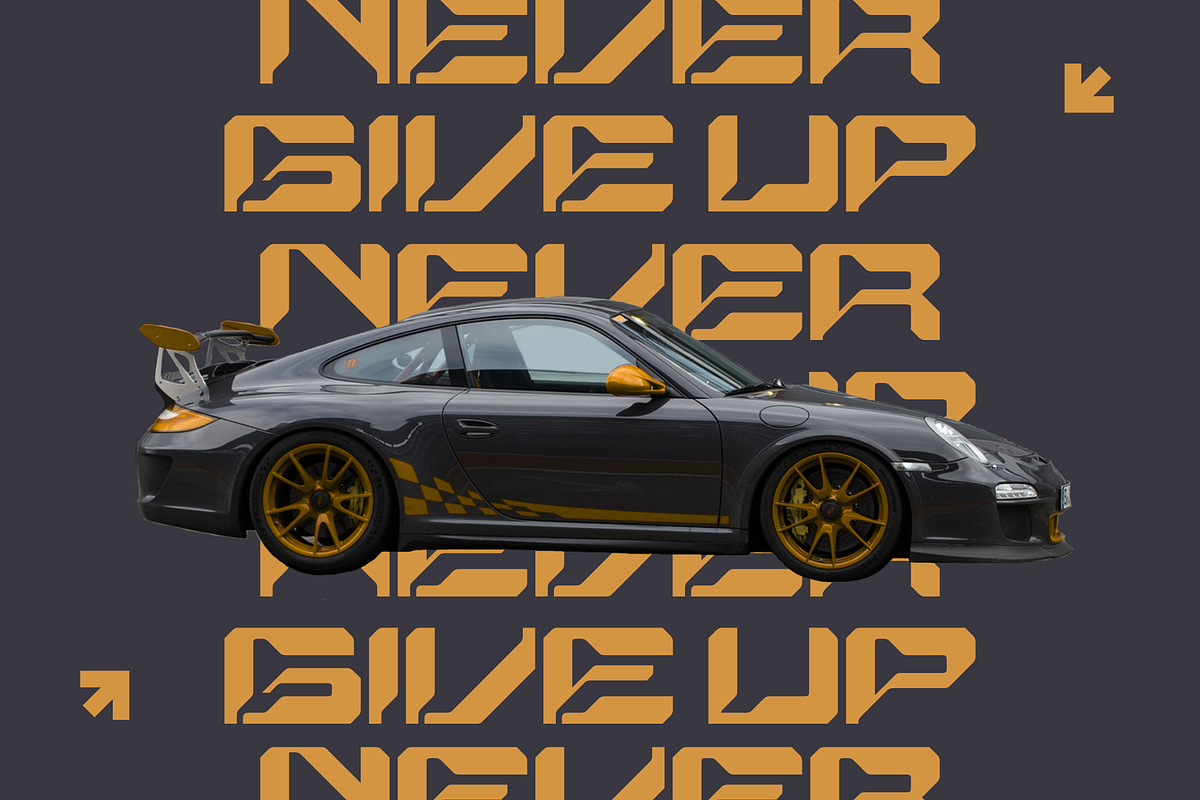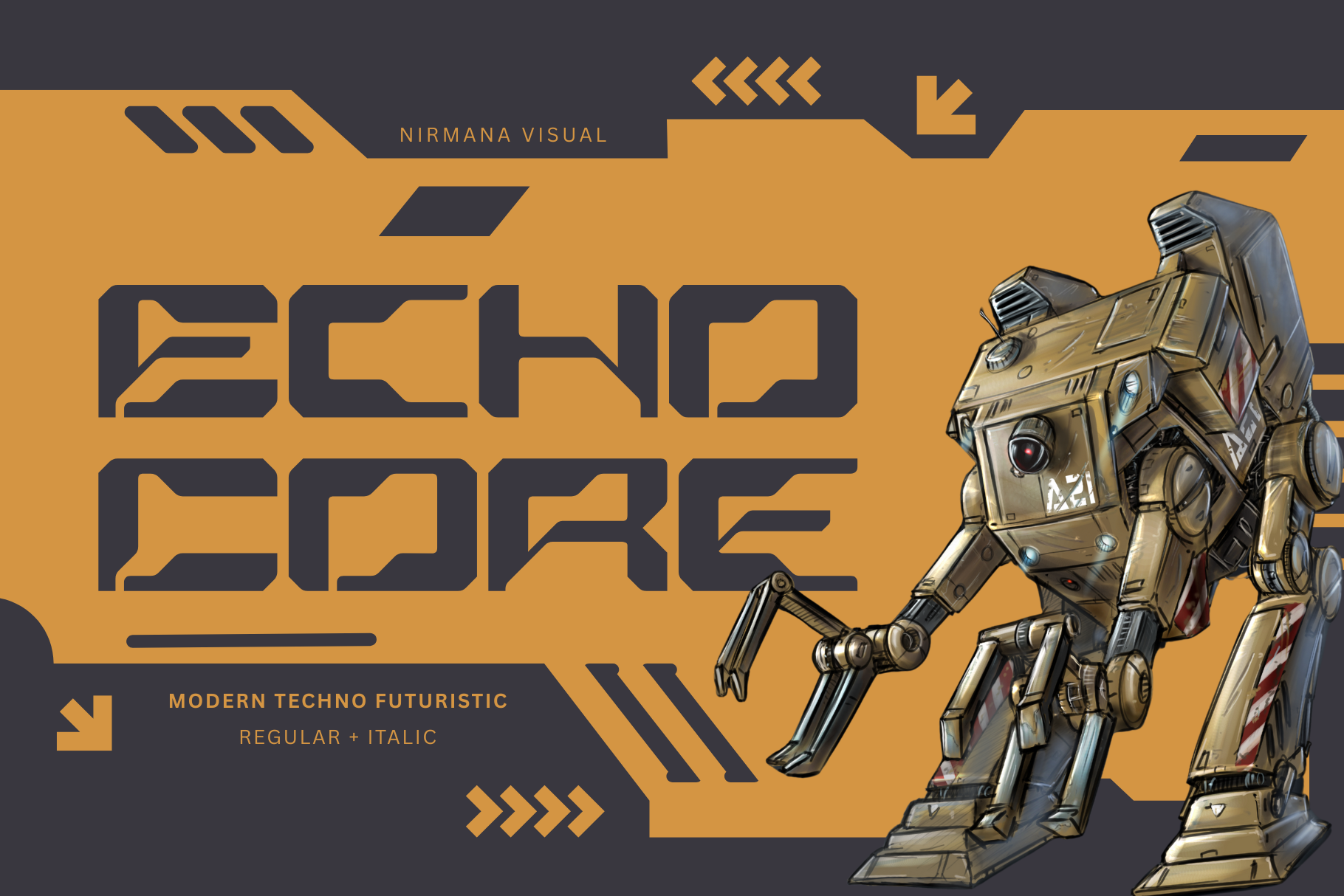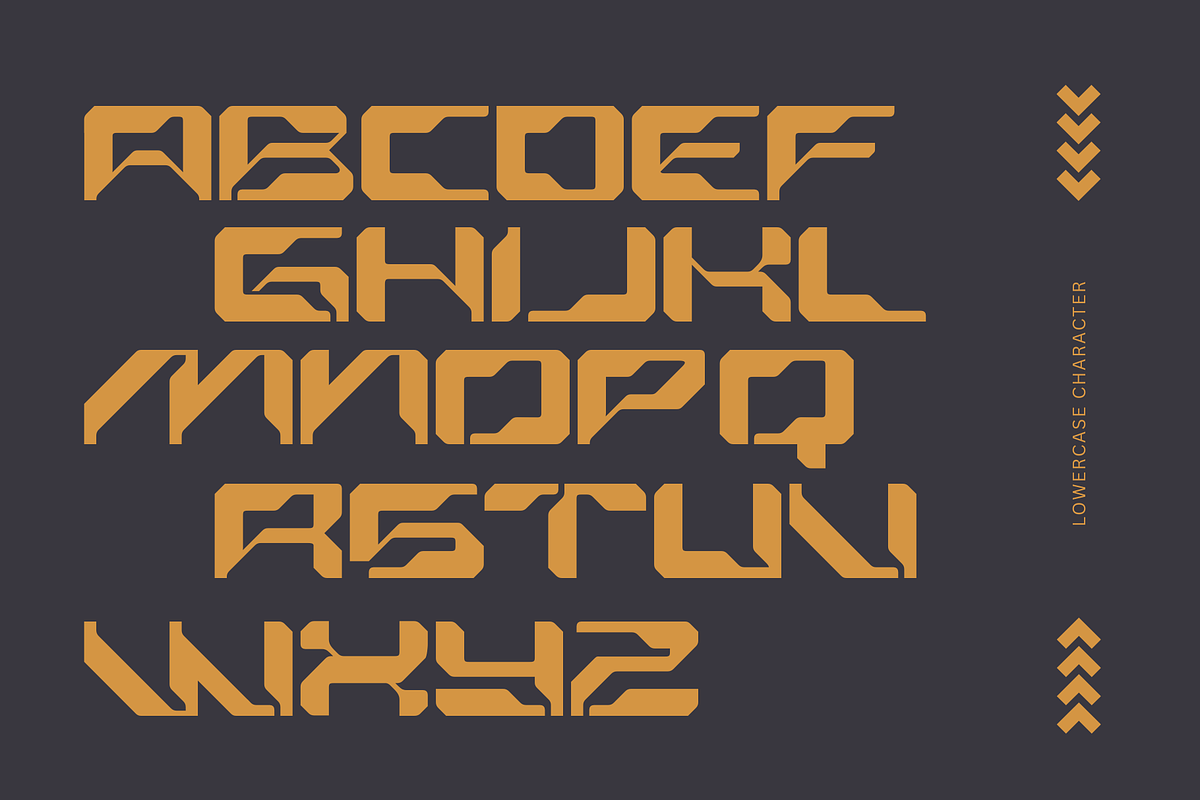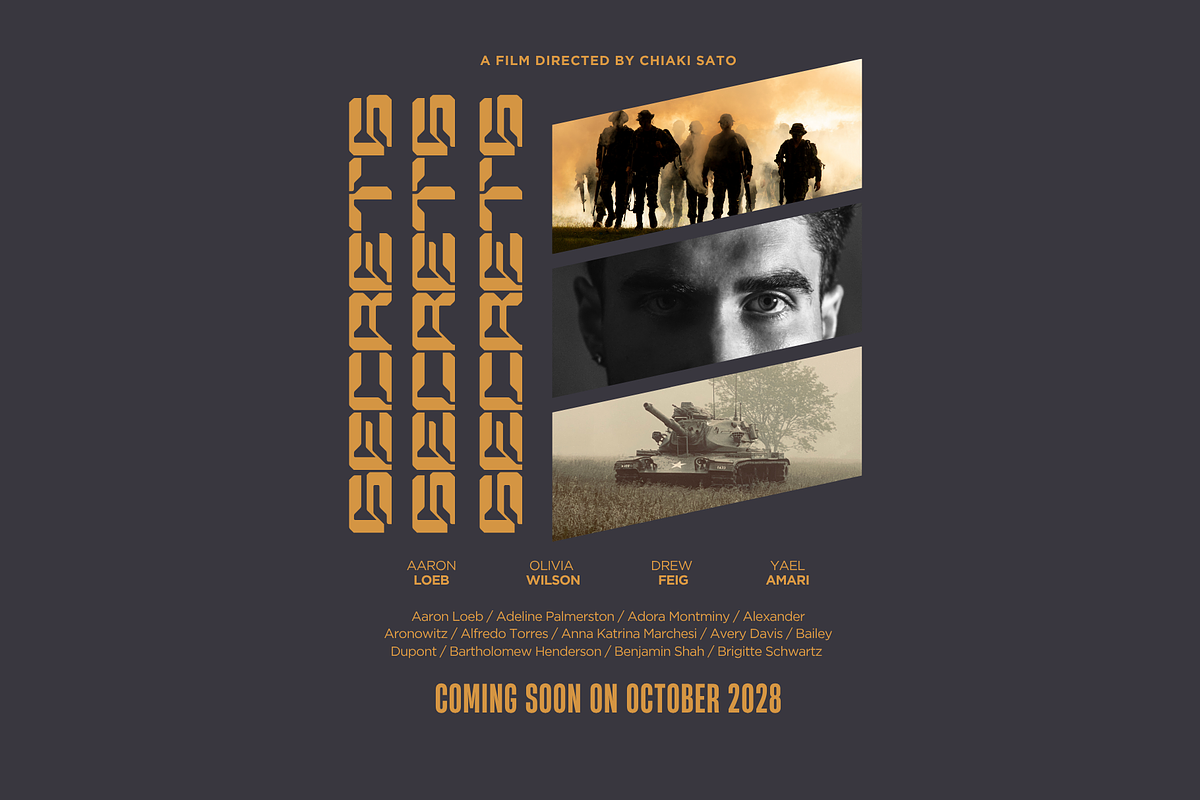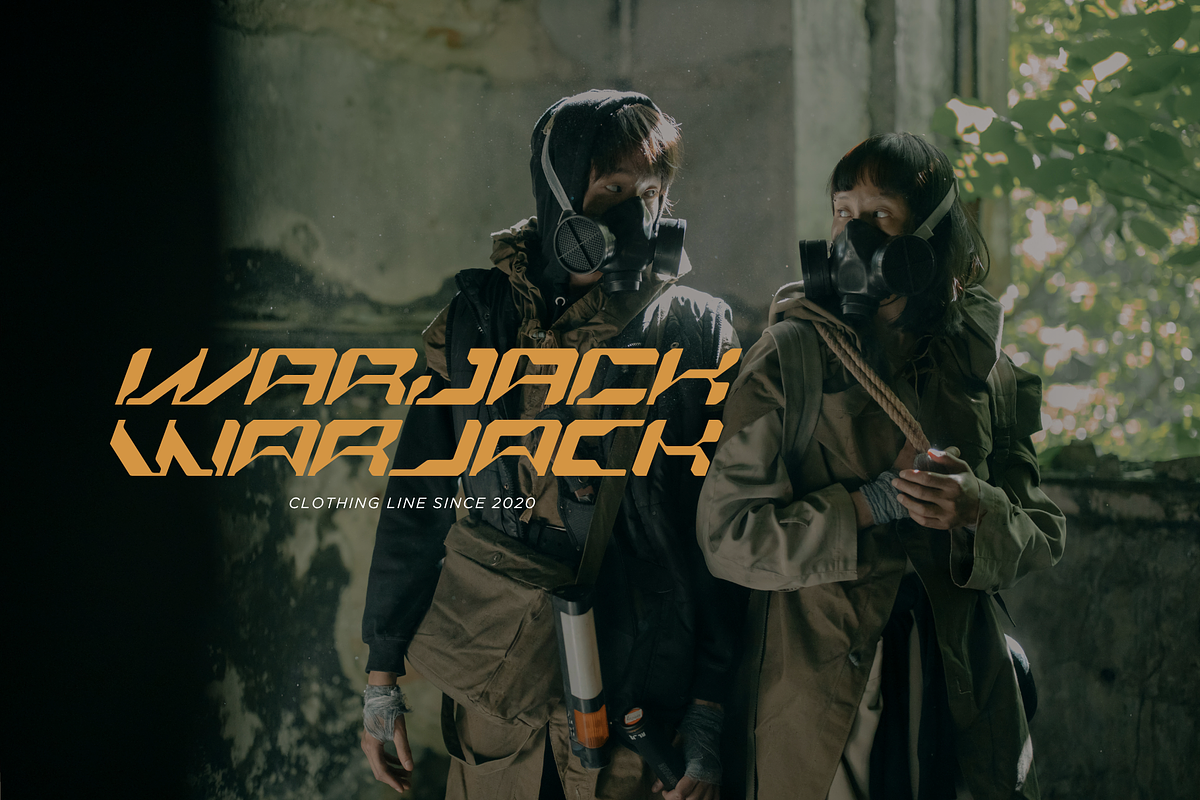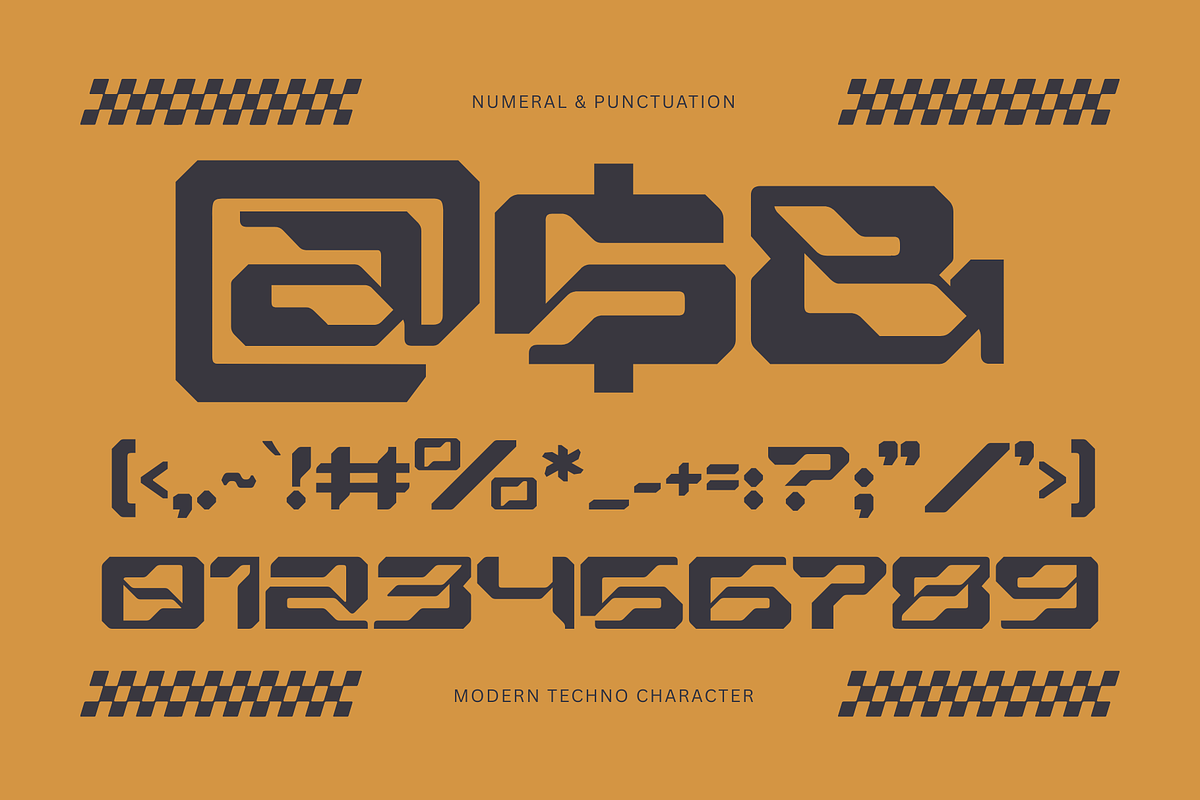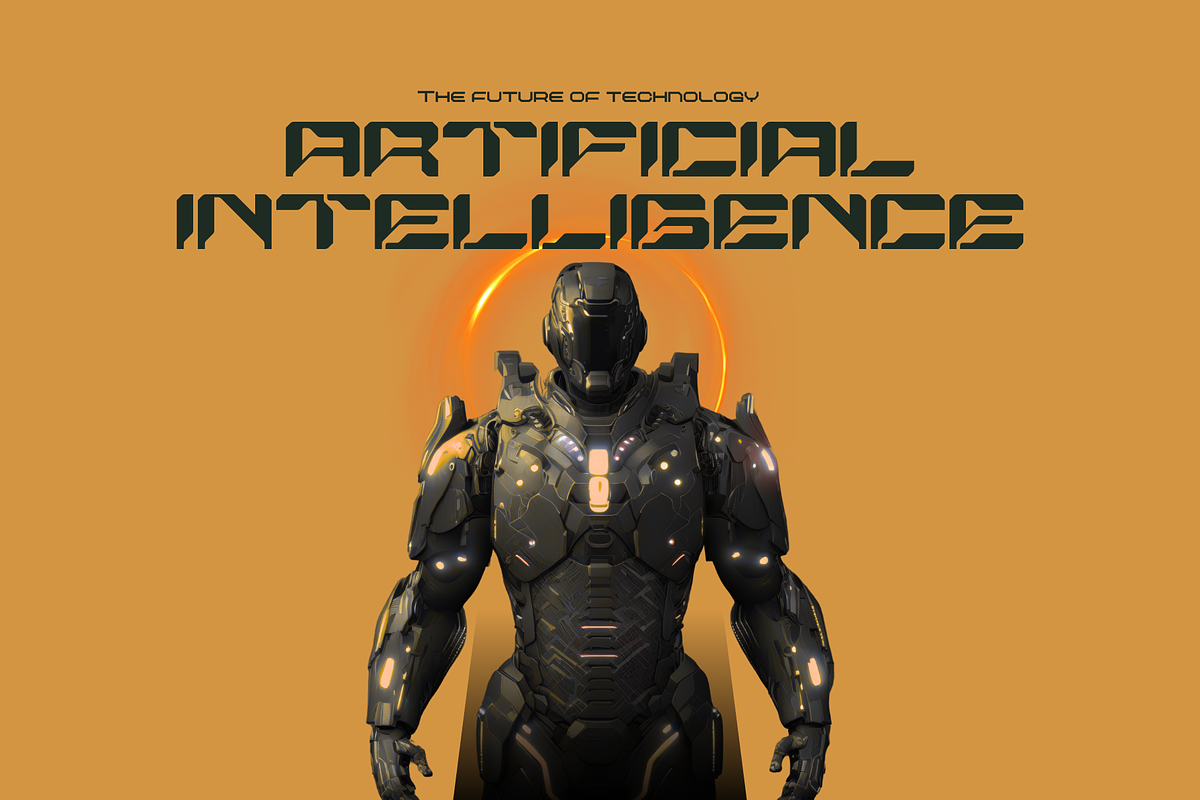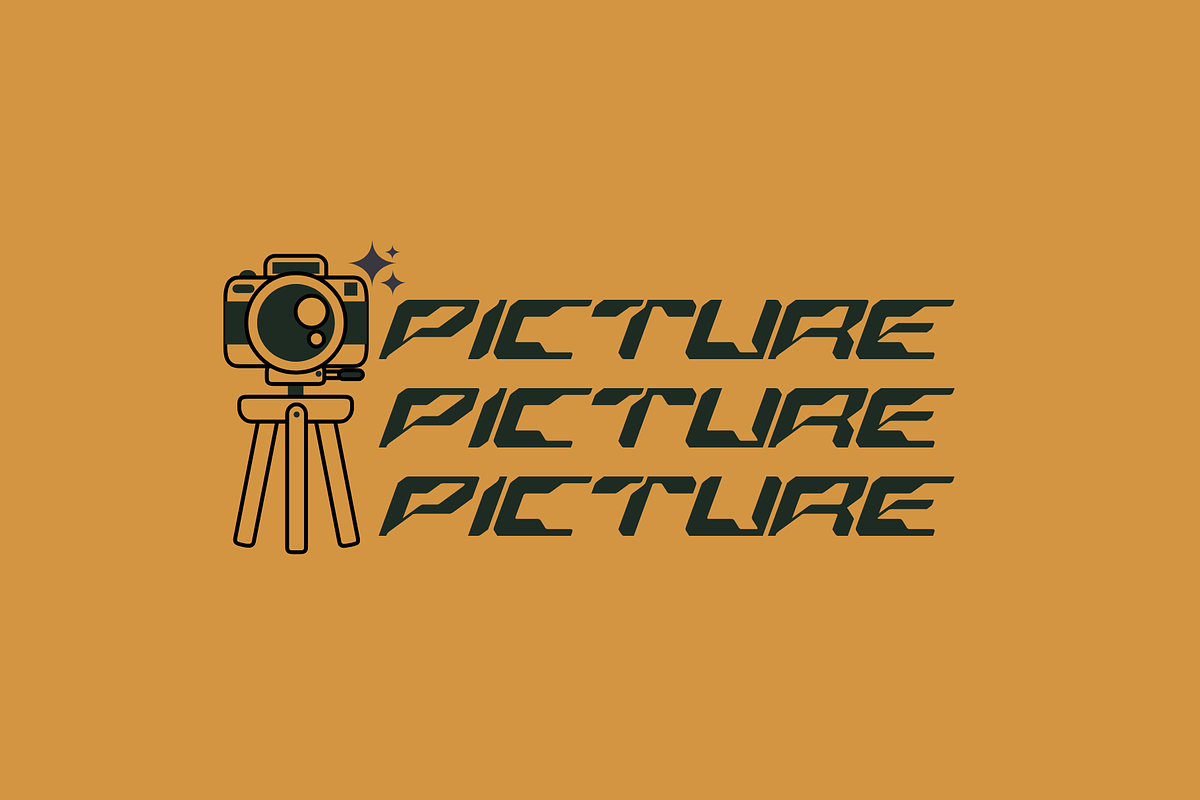
Modern Logo Font - Echocore Techno
Echocore Techno - Modern Logo Font
Echocore is a modern technology logo font designed for innovation and precision. Featuring clean lines, geometric structure, and futuristic appeal, it brings a cutting-edge look to any tech-driven brand. Available in Regular and Italic styles, Echocore offers versatility and clarity, ideal for digital interfaces, startups, and branding. Its sleek, high-tech aesthetic captures the essence of forward-thinking design.